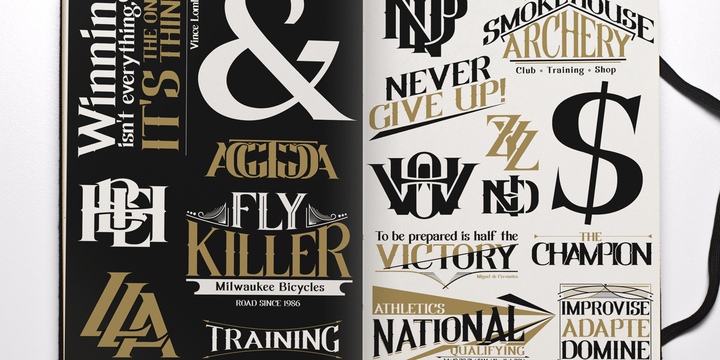
SQUADRA is a serif typeface with more than 220 characters, framing a perfect union between typefaces of his style and unconventional shots from the calligraphic pen; Its strong and imposing appearance, the pronounced contrast between his strokes and changes in traditional aesthetics provide you with elegance and distinction to differentiate over other types of the same class.
Easy modifiable and great graphic content to small and large format SQUADRA is able of generating a clear and direct message, suit almost any topic and perfect for use in posters, logos and editorial headlines. Infinitely versatile typeface that evokes both the beauty and finesse of the plants as power its thorns and its deadly poison.